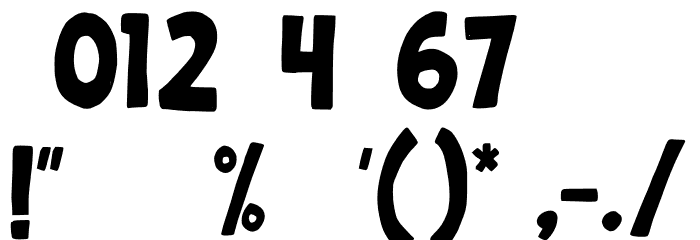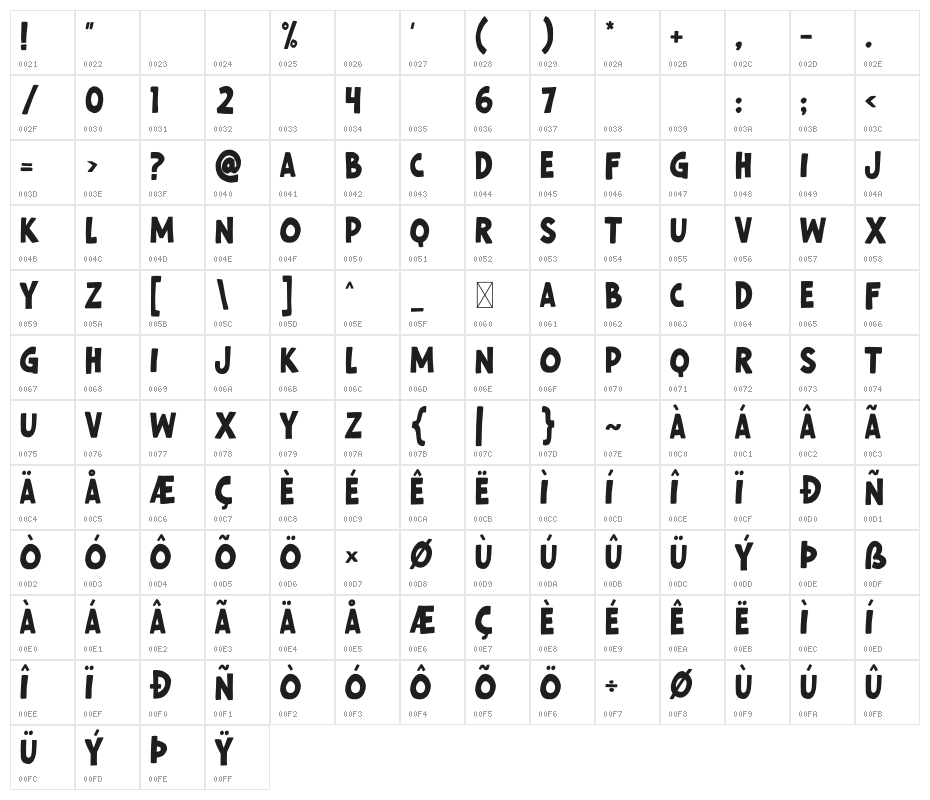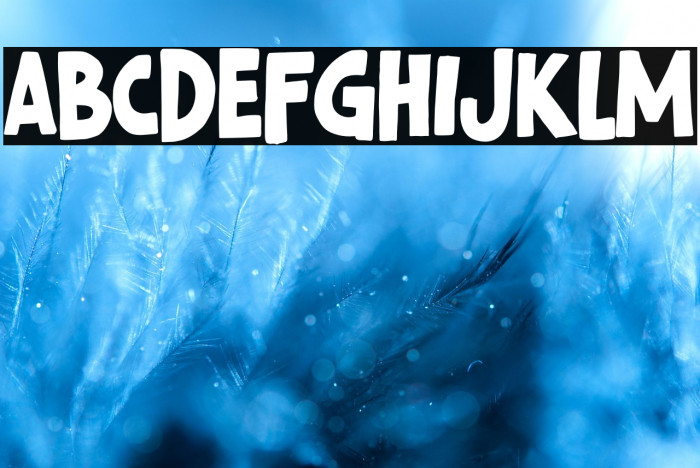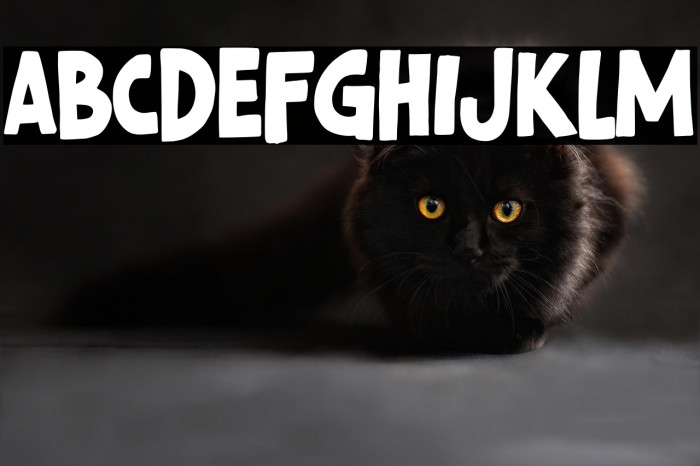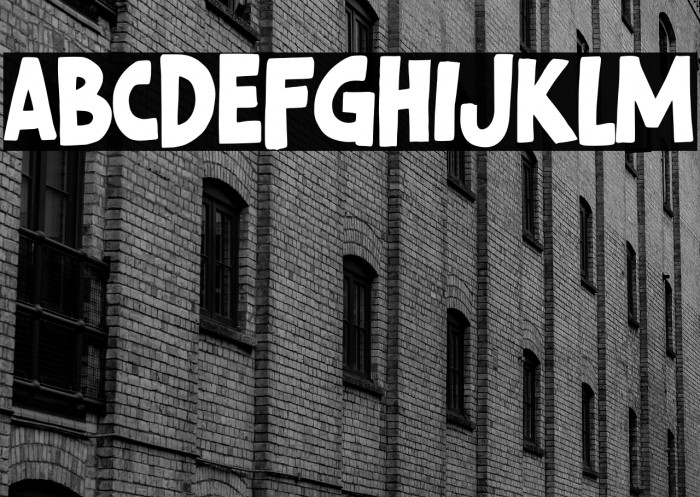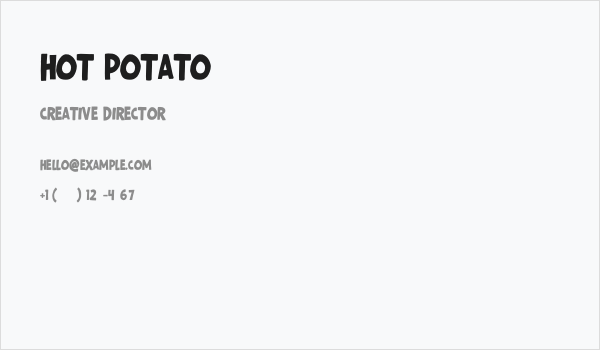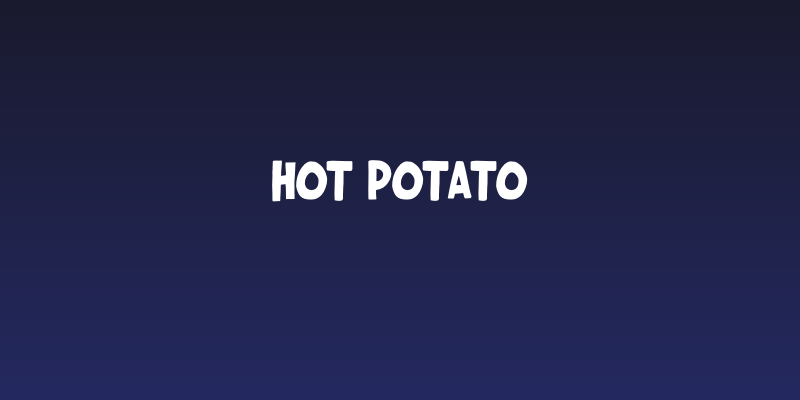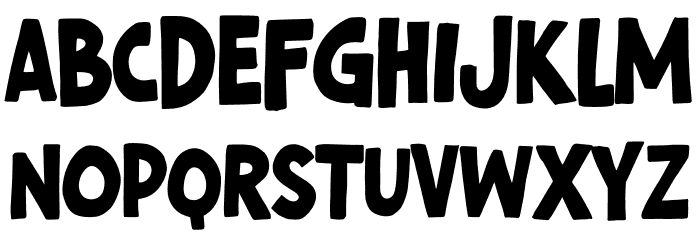
Hot Potato Font
Hot Potato Description
This font features bold, playful characters with a slightly uneven baseline, giving it a hand-drawn, casual appearance. The letters are thick and rounded, with a consistent stroke width that conveys a sense of fun and approachability. The uppercase and lowercase letters maintain a uniform style, while the numbers and special characters complement the overall design. The font's boldness and unique character shapes make it ideal for projects that require a lively and informal touch.
| Overall Style | Playful, Casual |
| Proposed Projects | Ideal for children's books, playful branding, posters, and social media graphics. |